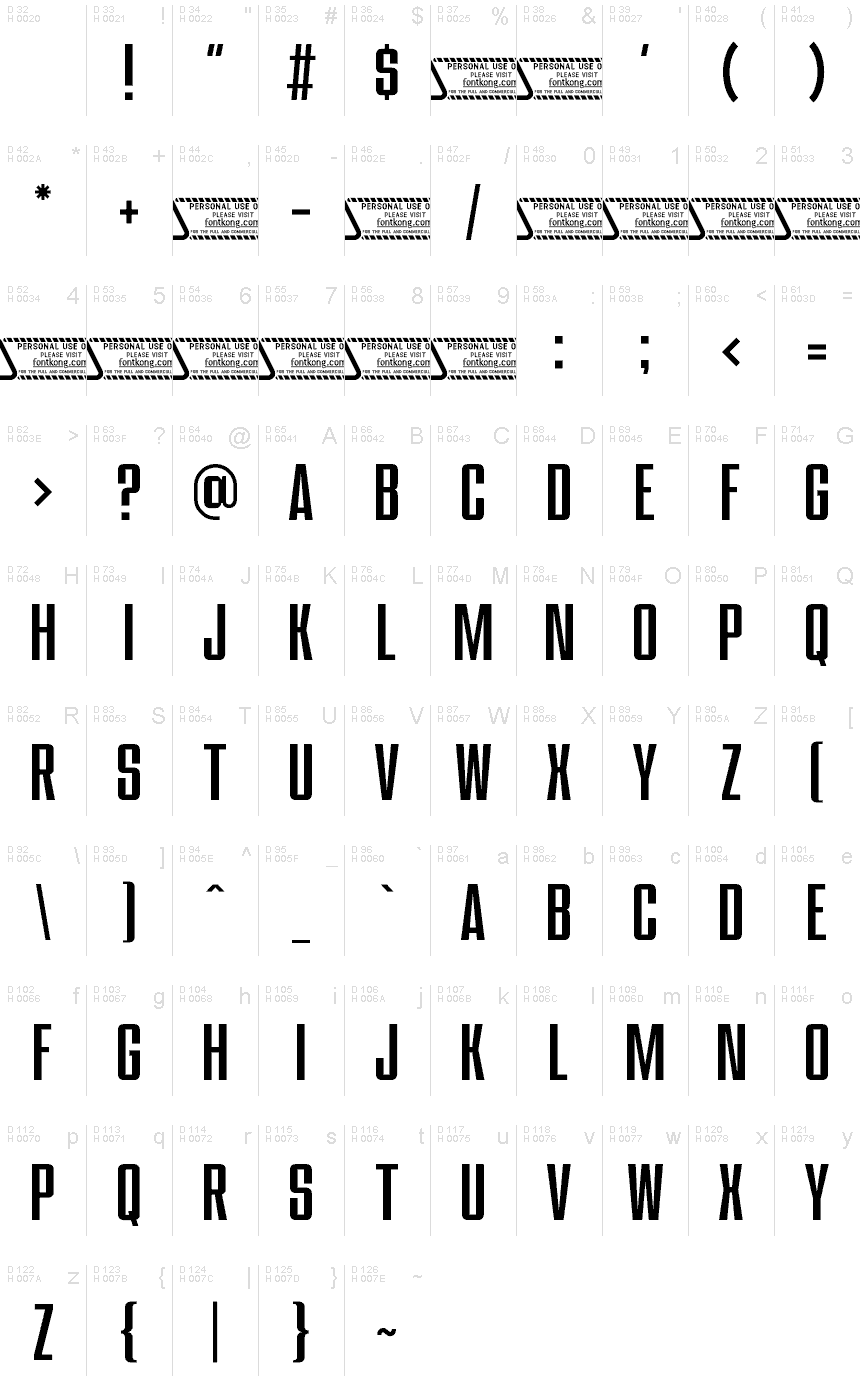
Coloni font by Kong Font is a geometric condensed sans serif font with a modern, minimalist design. The characters are built on the square structure of pixel grid, which makes them even and consistent throughout the texts written with this font. Coloni has a strong visual presence and an overall look that balances between industrial and futuristic.
This free font is perfect for branding projects, industrial business identities, professional presentations, games design, movie posters or exhibition banners. It can be also used for logo designs, signage systems in museums or airports as well as printed media publications or web platforms.